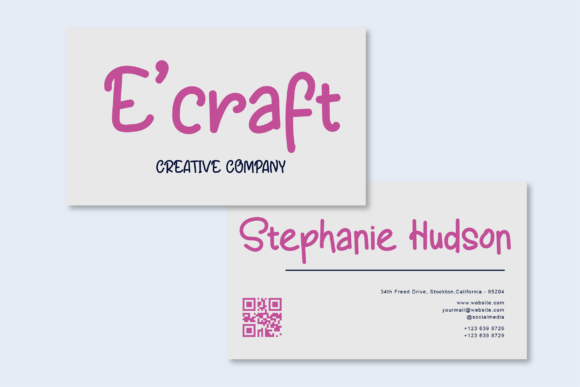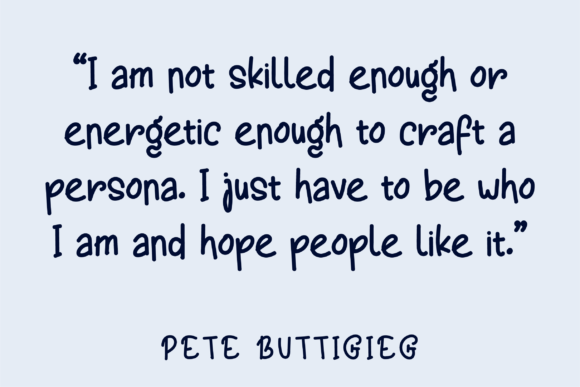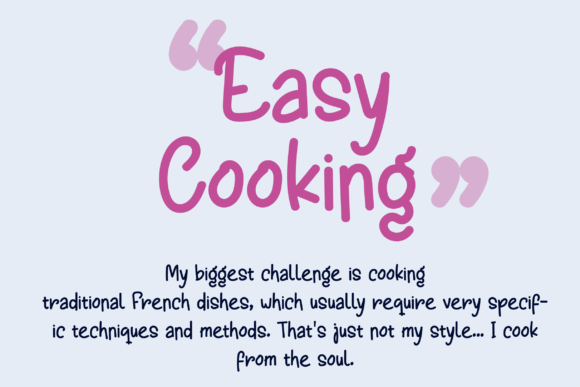
Introduction to Be Crafter Font
Be Crafter is a sweet and flowing handwritten font, perfect for your favorite projects.
Key Features of Be Crafter Font
Why Choose Be Crafter Font?